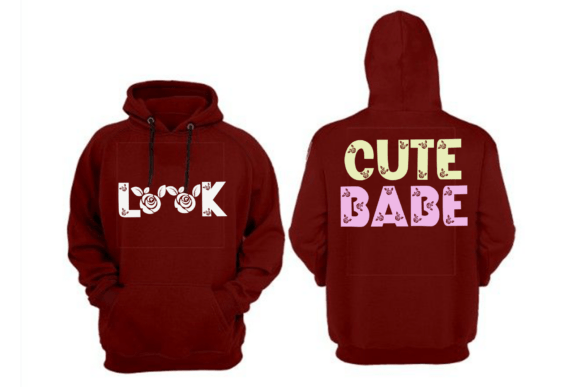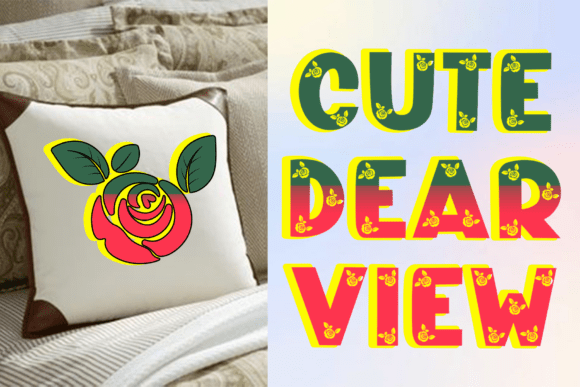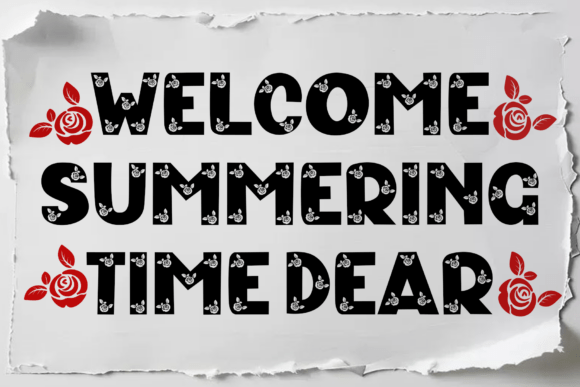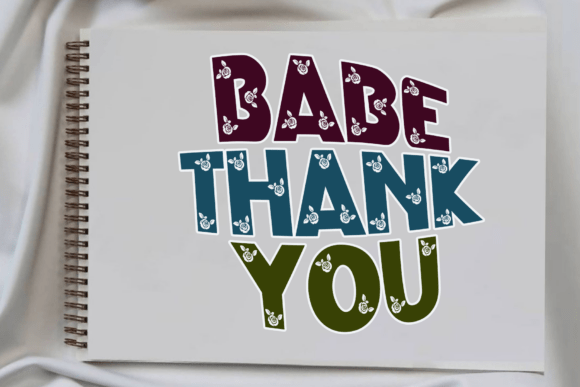
Getting Cozy with Autumn’s Charm
As the leaves start to change and the air grows crisp, I find myself drawn to the warmth and coziness of autumn. There’s something about the season’s rich colors and inviting scents that sparks my creativity and inspires me to get crafting. Whether it’s a homemade gift or a seasonal decoration, I love finding ways to bring the magic of autumn into my projects.
One of my favorite ways to infuse my designs with autumn’s charm is by using the delightful Autumn Garden Font. This adorable font is filled with floral and fruit accents that add a playful touch to any project. Perfect for fall-themed projects, garden invitations, and organic branding, the Autumn Garden Font is a must-have for designers looking to capture the essence of the season.
What I love most about the Autumn Garden Font is its versatility. Whether you’re creating a whimsical card or a professional brand identity, this font’s charm and character can add a unique touch that sets your designs apart. With its adorable accents and autumnal feel, the Autumn Garden Font is a valuable addition to any designer’s toolkit.
Autumn Garden Font Key Features
- Font Family: Autumn Garden
- Unique Characteristics: Hand-painted, organic design with subtle texture and intricate details, ideal for creating a whimsical and natural atmosphere in designs
Review of Autumn Garden Font
I recently had the chance to work with the Autumn Garden Font, and I must say it’s a charming addition to any design project. Here are my thoughts on what works well and what doesn’t:
- Unique aesthetic: Autumn Garden Font brings a warm, cozy feel to your designs, perfect for projects that require a seasonal or whimsical touch.
- Highly legible: The font is easy to read, even at smaller sizes, making it suitable for body text, headings, and even signage.
- Compatible with various styles: Autumn Garden Font can be used in a range of design styles, from minimalist to more ornate and elaborate.
- Not ideal for large blocks of text: While the font is legible, it’s not the best choice for lengthy paragraphs or dense blocks of text, as it can become overwhelming.
- May not be suitable for digital displays: Autumn Garden Font’s unique character set and subtle irregularities may not translate well to digital screens, potentially leading to readability issues.
The Autumn Garden Font is a delightful addition to any designer’s toolkit, offering a unique aesthetic and high legibility. While it may have some limitations, it’s a great choice for projects that require a seasonal or whimsical touch. I’d definitely recommend it for smaller projects or as an accent font in larger designs.
For optimal results, pair the Autumn Garden Font with earthy color schemes and natural textures. This font is perfect for designs related to nature, fall, and outdoor activities.
The Autumn Garden Font is ideal for:
– Fall-themed invitations and cards
– Outdoor and nature-inspired designs
The Autumn Garden Font is a popular script font known for its elegant and whimsical feel, often used in wedding invitations, greeting cards, and other creative projects. However, if you’re looking for alternatives, here are a few options: